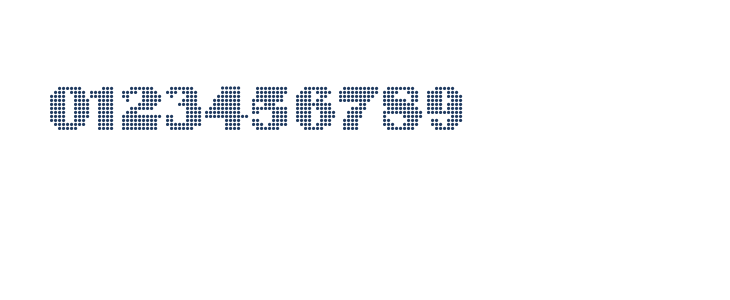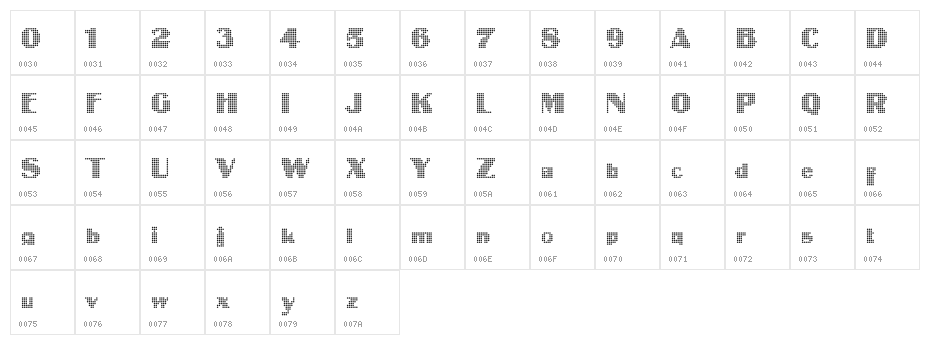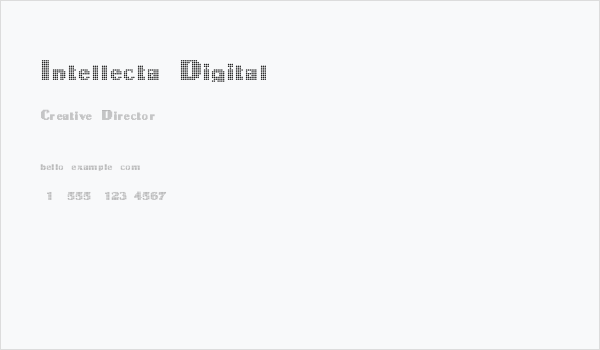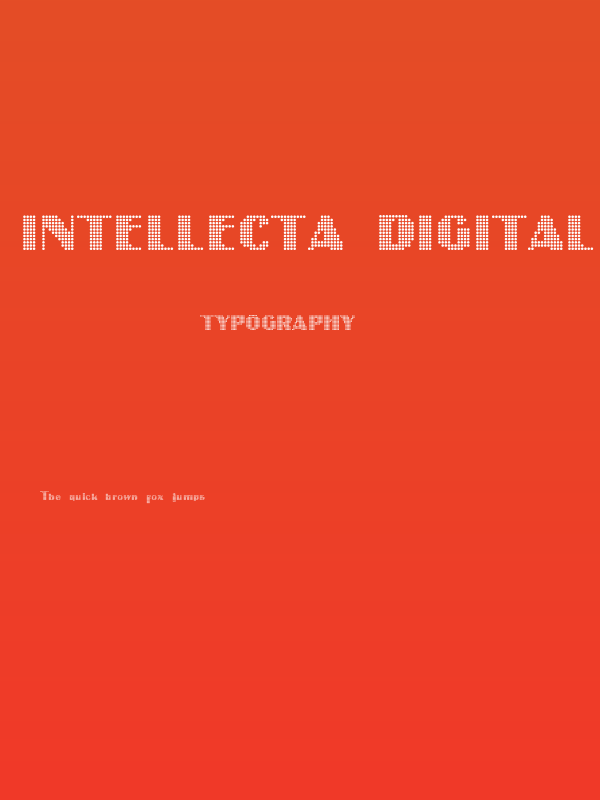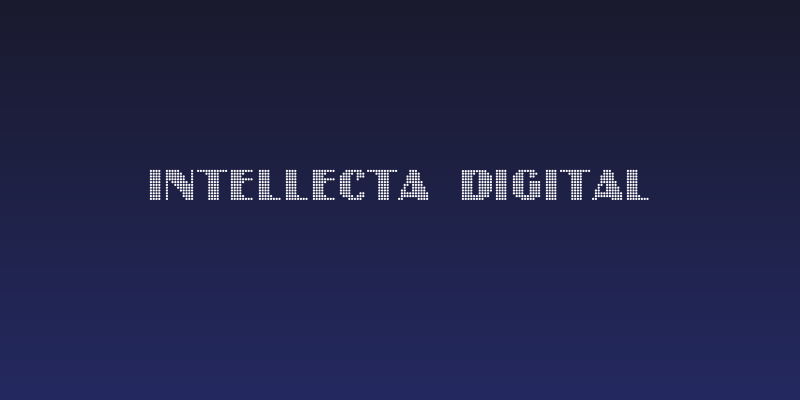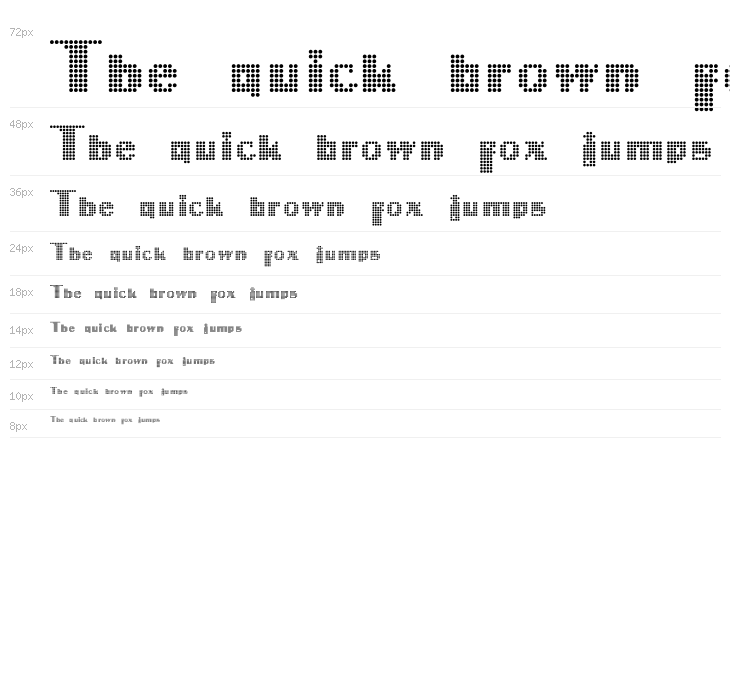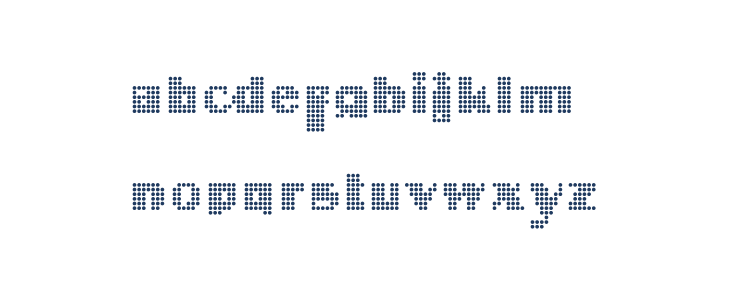
Intellecta Digital Font
Intellecta Digital Description
This font features a unique dot matrix style, where each character is composed of small, evenly spaced dots. The design is reminiscent of digital displays or LED screens, giving it a modern and technological feel. The characters are bold and easily legible, with consistent spacing between the dots that form each letter and number. This style is particularly eye-catching and can be used to convey a sense of innovation or digital sophistication. The uniformity in the dot size and spacing ensures clarity and readability, making it suitable for various design applications.
| Proposed Projects | Ideal for digital-themed designs, tech company branding, futuristic posters, and electronic product packaging. |